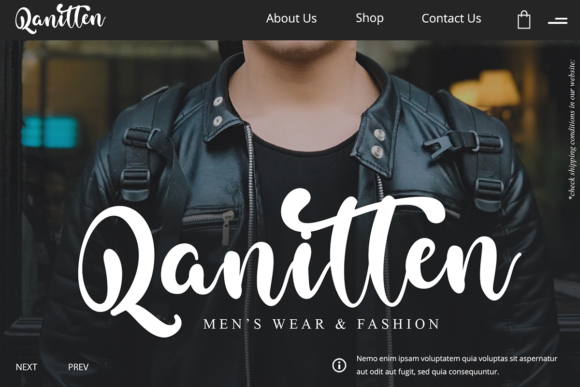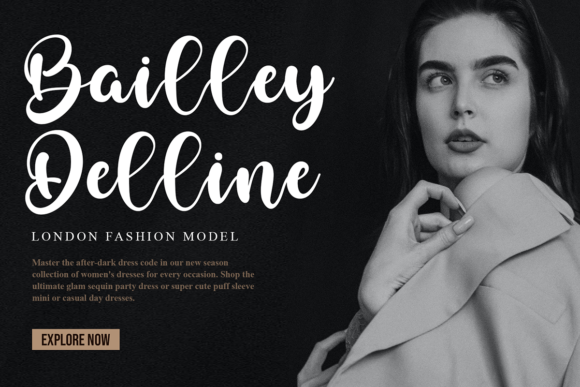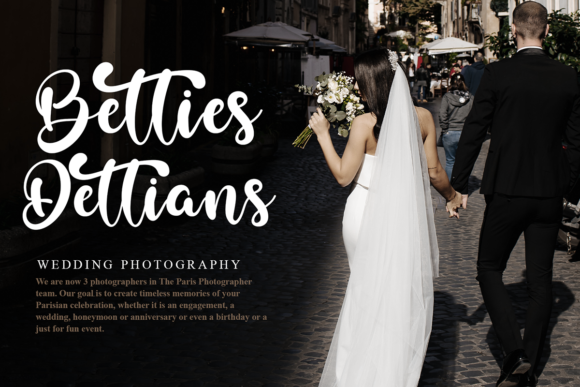
Introduction to Bailey Austin Font
Bailey Austin is a fine and graceful handwritten font.
This script font has a large spectrum of applications ranging from greeting cards to headlines and is guaranteed to add a chic feel to your next project .
Key Features of Bailey Austin Font
Why Choose Bailey Austin Font?
Bailey Austin Font offers exceptional quality and versatility, making it a valuable addition to your design toolkit. Whether you’re creating for personal projects or commercial use, Bailey Austin Font delivers professional results.